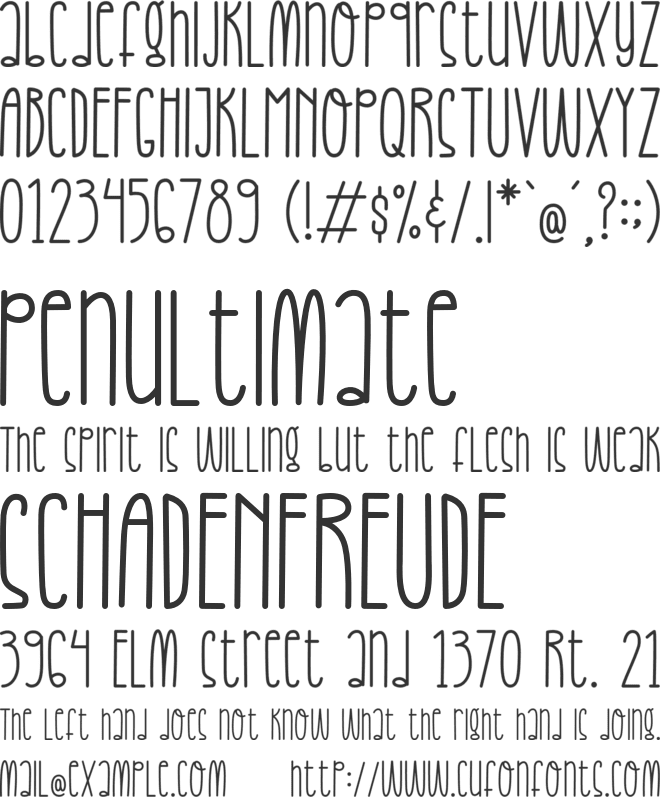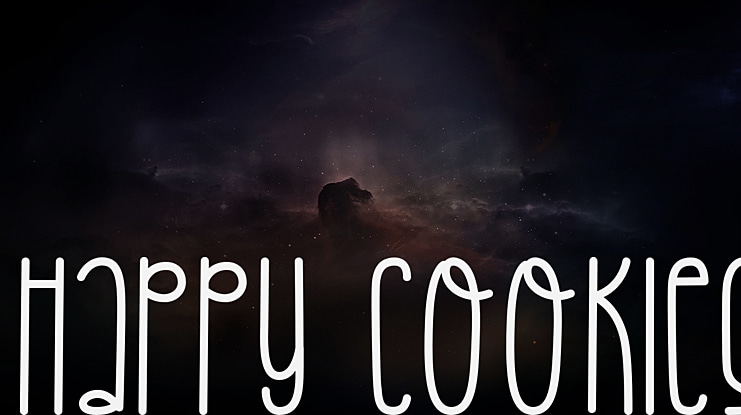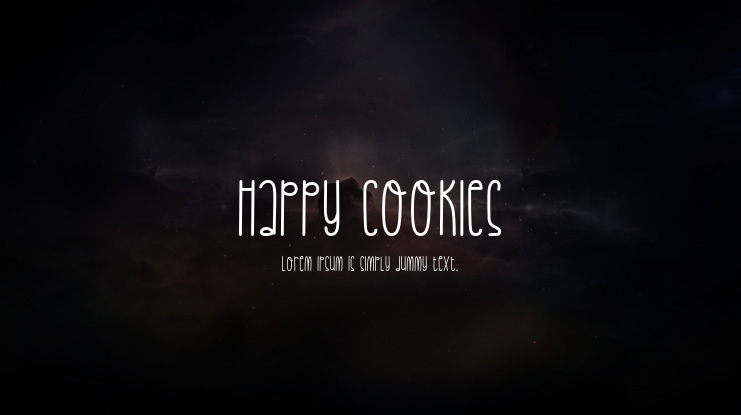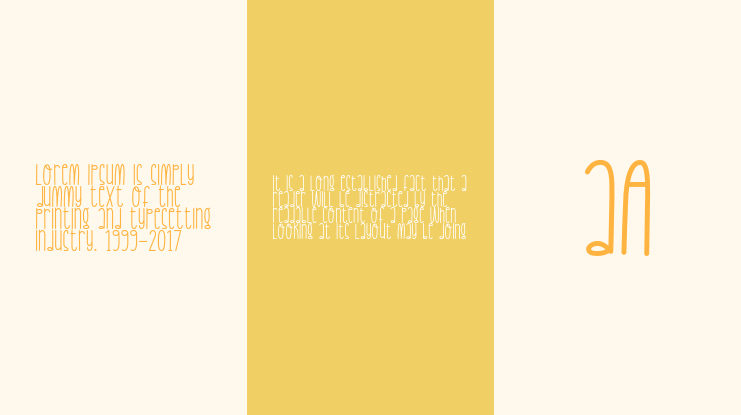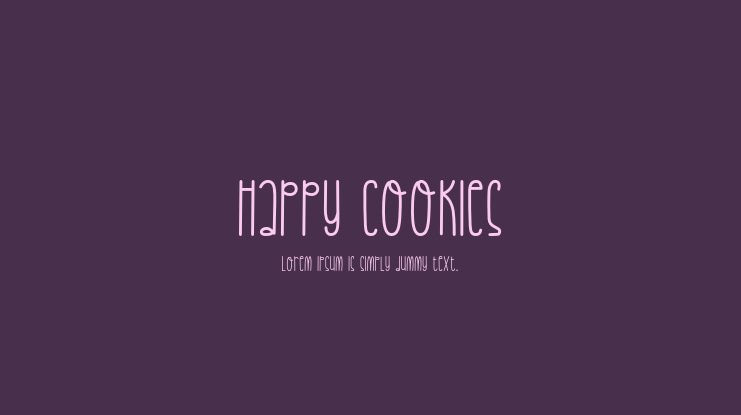
Happy Cookies Font
A fancy and elegant handcrafted font that create to impress your audience and make your branding shine.
Make your projects dance with this elegant and wonderful font wherever you use it. Use it for your
headings, logos, ads, printed quotes, packaging, and even your website or social media branding.